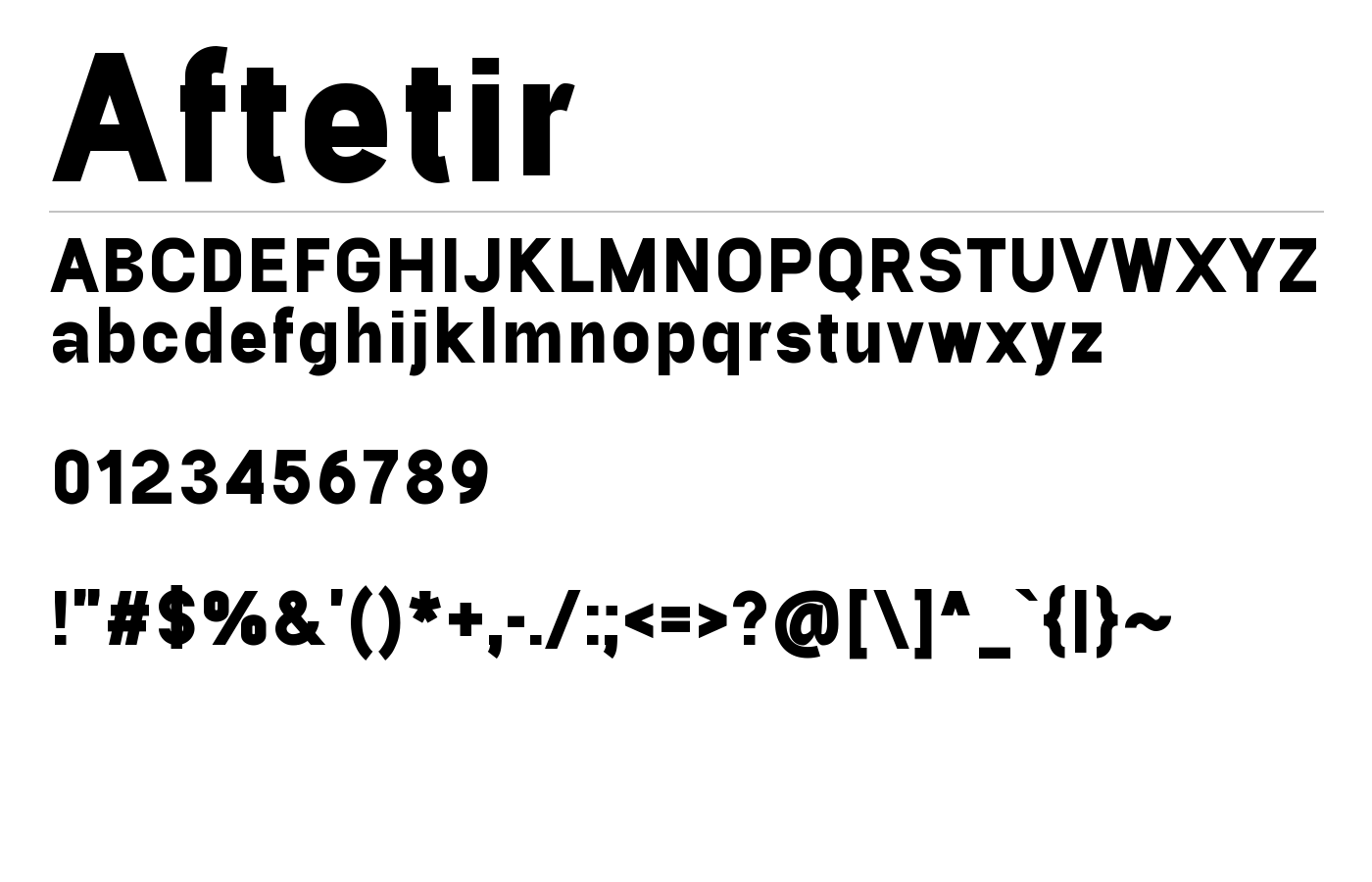
Aftetir is a bold, modern sans serif font with a strong, geometric structure and a slightly condensed width, making it ideal for impactful headlines and branding. Its clean lines and uniform stroke weight create a sense of confidence and clarity, while its sturdy letterforms ensure excellent readability in both uppercase and lowercase. This font works well for contemporary designs, from editorial layouts to packaging and digital use, where a bold, straightforward presence is needed.
Aftetir Font
About Aftetir Font
| Font family | Aftetir Font |
| Designer | Amru |